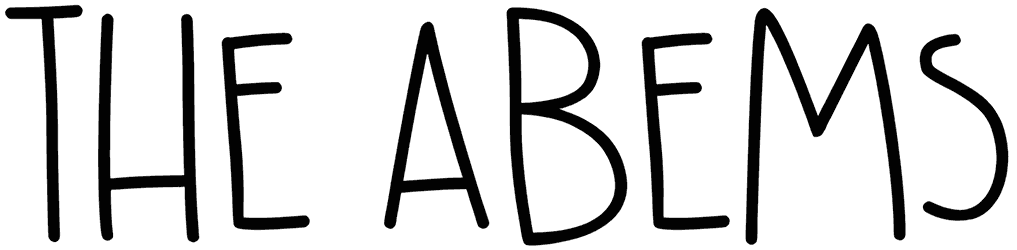
The Abems Font
You can’t go wrong with this handwritten font for any design, be it a flyer, a school project, or a banner. Despite its slim personality and lack of lowercase characters, the Abems is a valuable asset when it comes to drawing attention to various initiatives. Installing this script font on your computer will allow you to start working on a completely unique project right away. Would you like to see more of our collection of valuable freebies like this one?